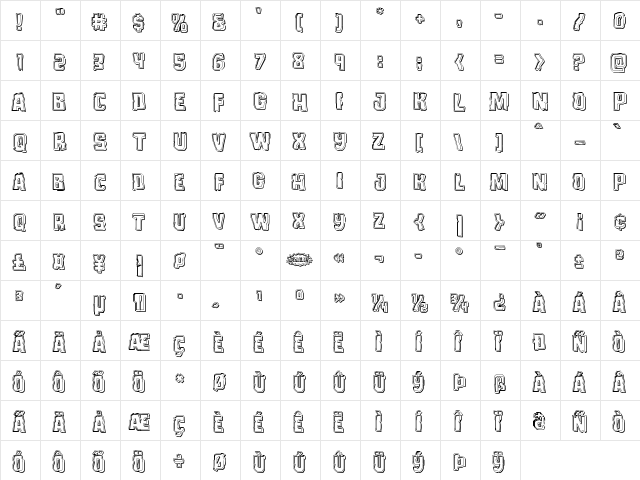
Monster Hunter Engraved Regular
Design Context for Monster Hunter Engraved Typeface
Monster Hunter Engraved brings ornamental detail and strong personality to headlines and identities, where visual impact matters more than quiet functionality.
Font Pairing: Pair with a clean neutral sans-serif for body copy to let Monster Hunter Engraved's character lead without overwhelming the composition.
Pro Tip: Use Monster Hunter Engraved exclusively at display sizes — it was designed to be seen, not read at length. Let a neutral companion handle body copy.